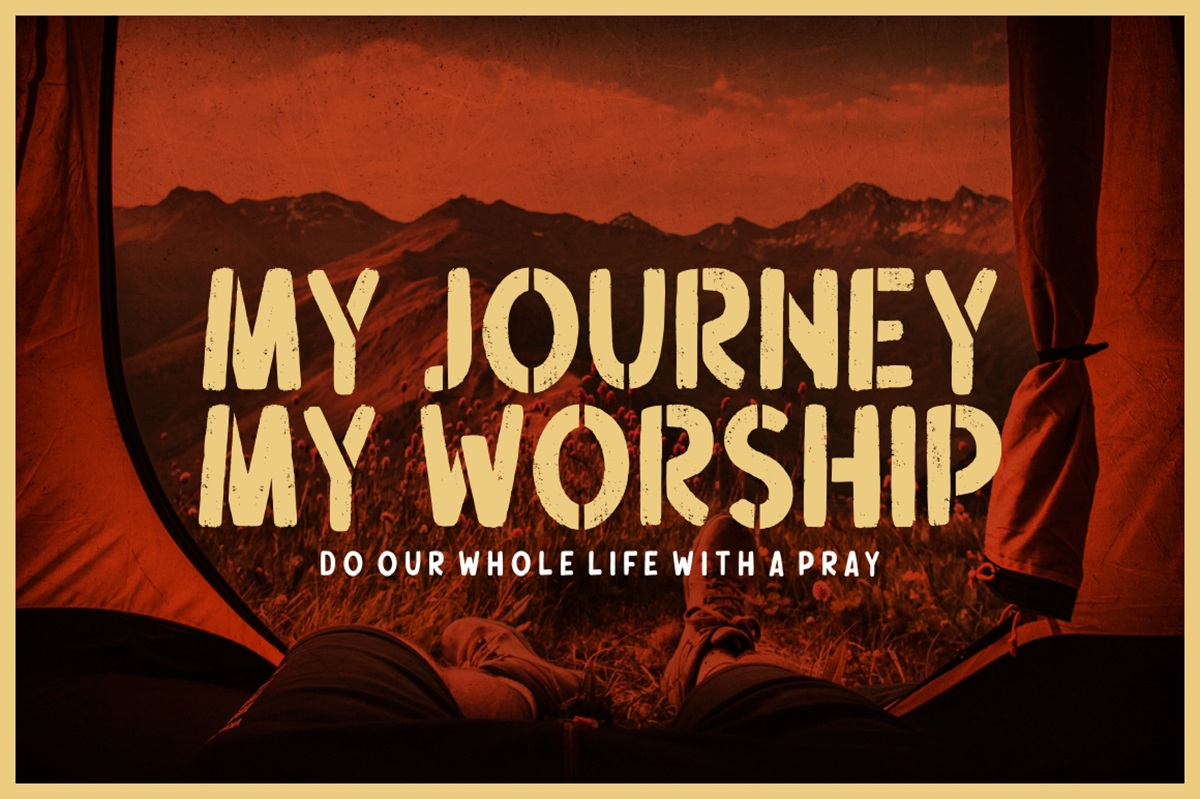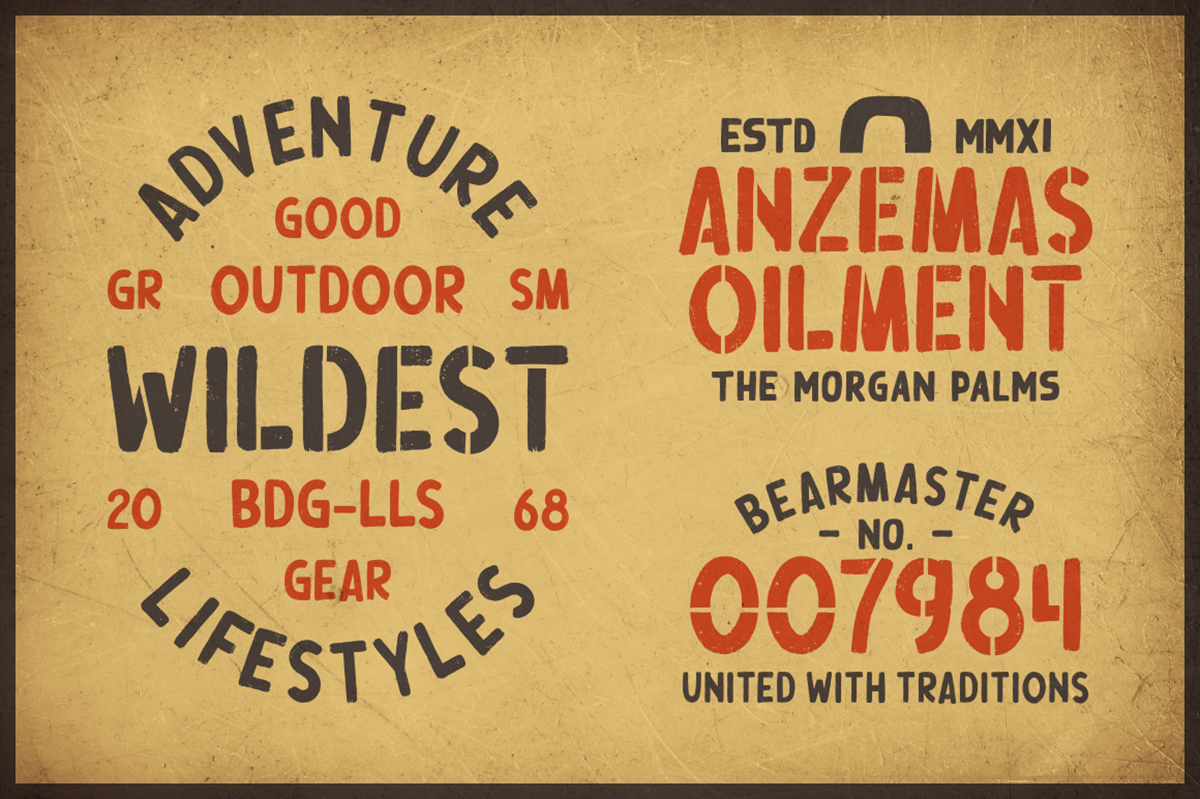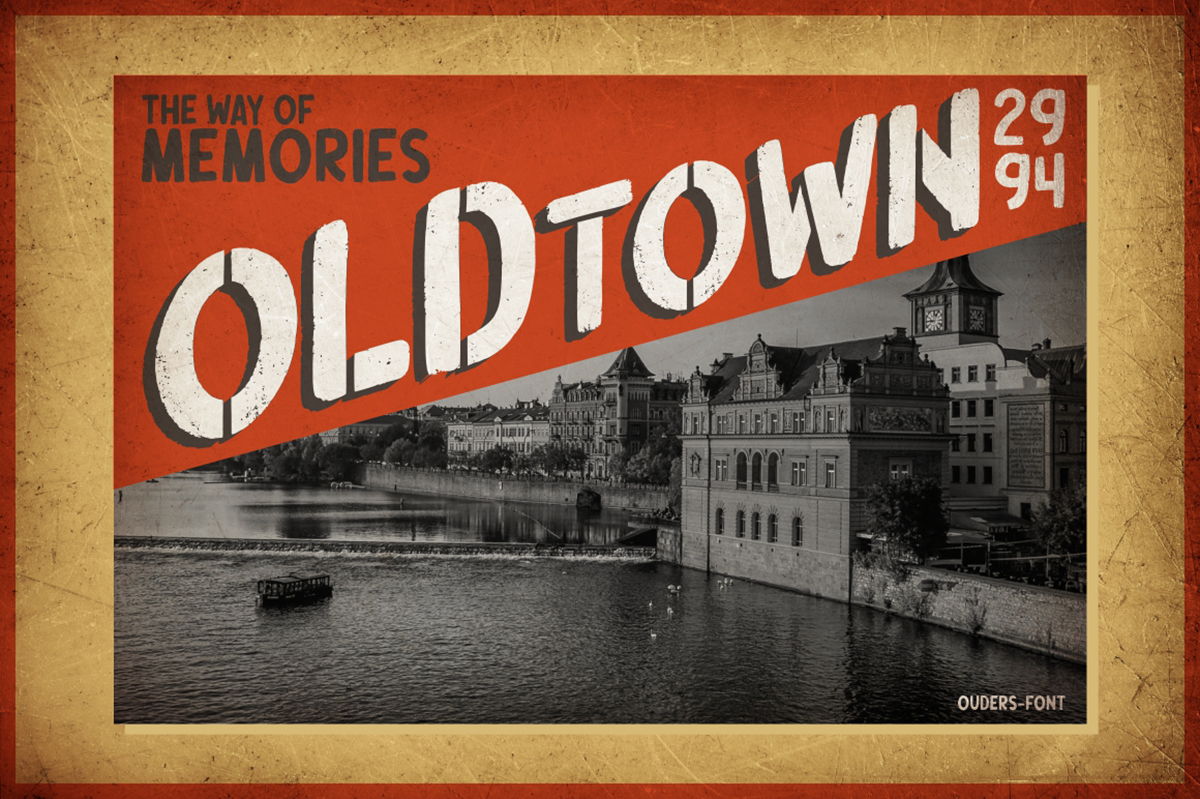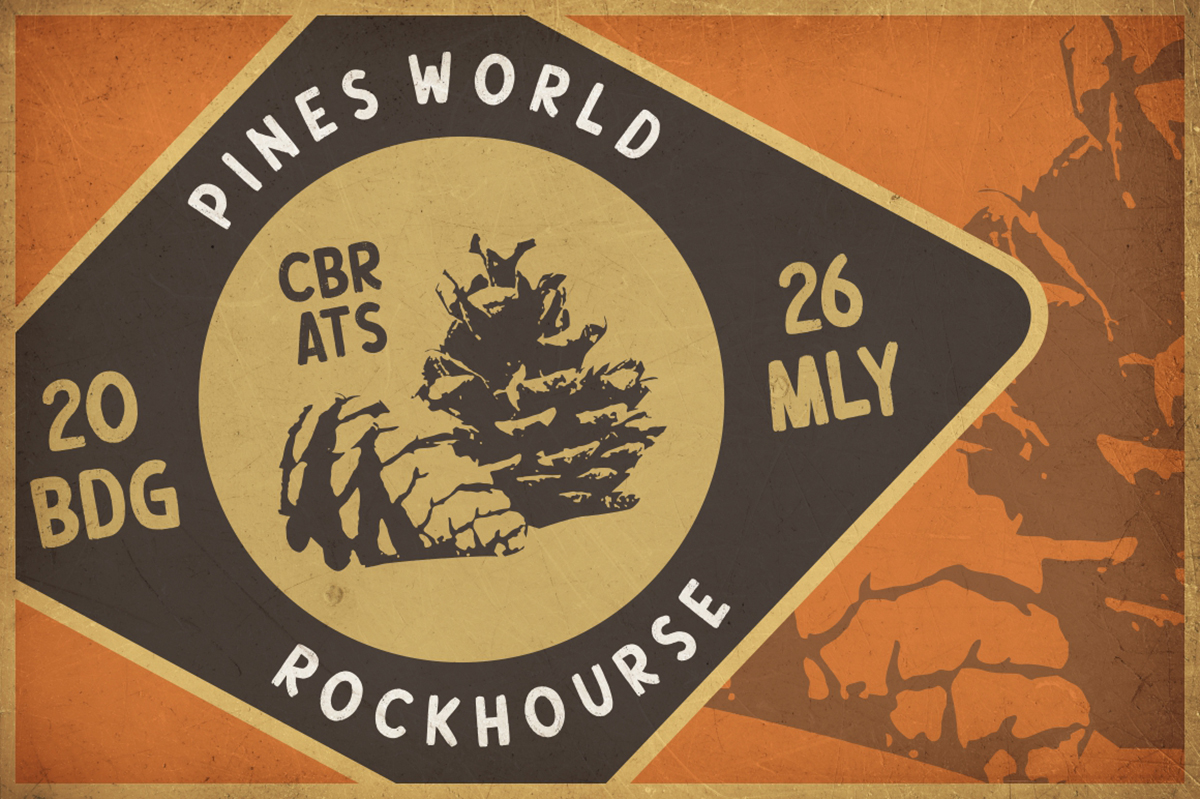
Ouders Free Font
Ouders Free Font is very able to beautify also strengthen your work in the form of type logos, typography, hand-lettering, packaging, t-shirts, labels, and much more. This free typeface was designed by the talented Garisman Studio. If you like it don’t forget to check out the full version.